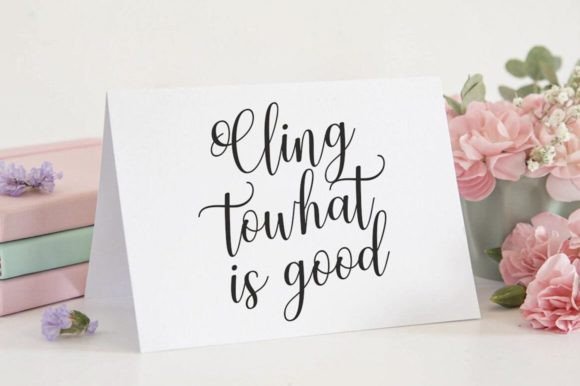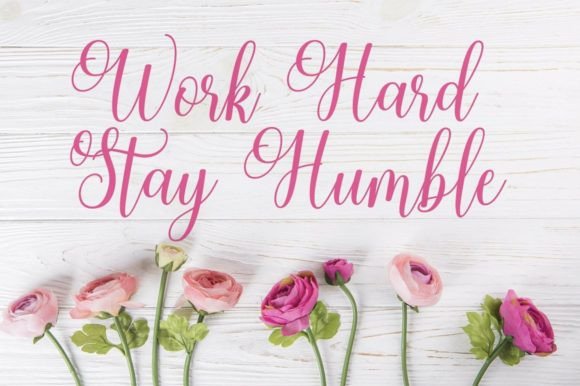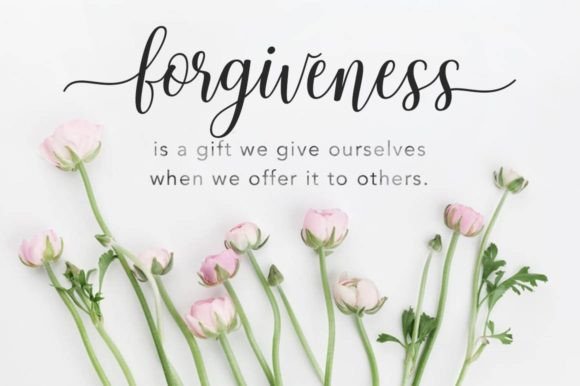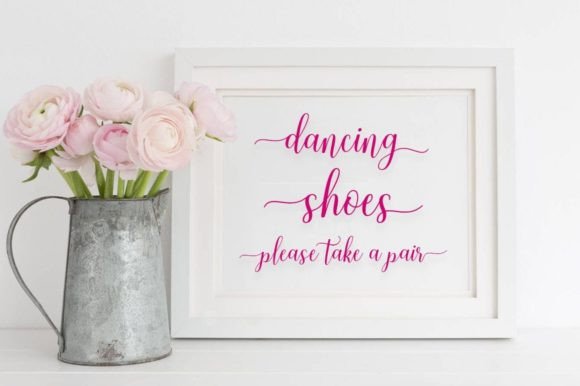
Introduction to Micolisia Font Font
Fonts play a crucial role in design, and the Micolisia Font font is a typeface that brings both character and versatility to any project. Whether you’re working on a branding project, a website, or a print design, the Micolisia Font font offers a unique style that can elevate your work.
Micolisia is a modern and elegant handwritten font specially crafted to meet all your design needs.
Add it to your logos, product packaging, wedding invitations, branding, headlines, labels, signatures, book covers, posters, quotes, and many more, and make them outstanding This font is PUA encoded, which means you can access all of the glyphs and swashes with ease.
The Micolisia Font font is more than just a typeface – it’s a design tool that helps you communicate your message with style and clarity. Its unique character set and versatile design make it suitable for a wide range of applications, from elegant invitations to bold headlines.
With its carefully crafted letterforms and balanced proportions, the Micolisia Font font ensures readability and visual appeal across all mediums.
The Micolisia Font font stands out with its unique design, exceptional readability, and versatility across various design applications.